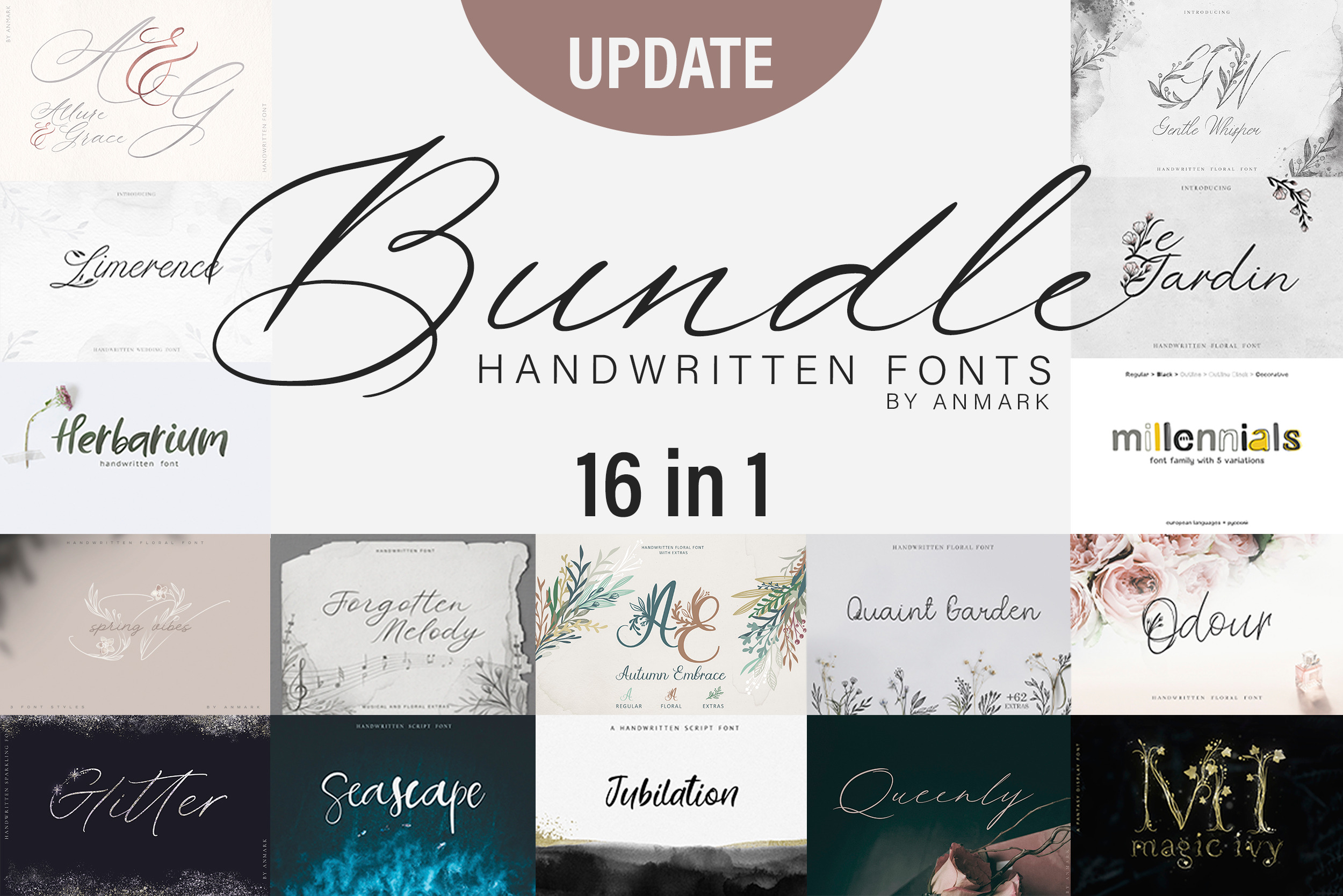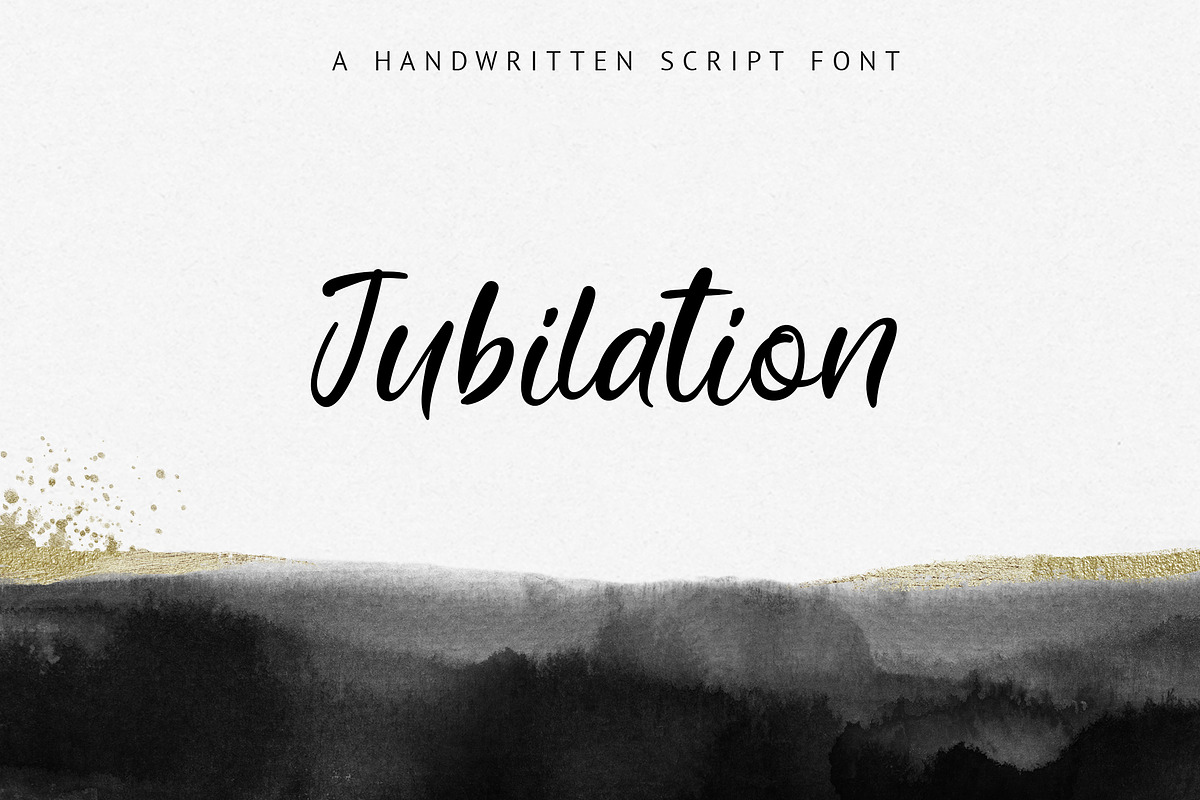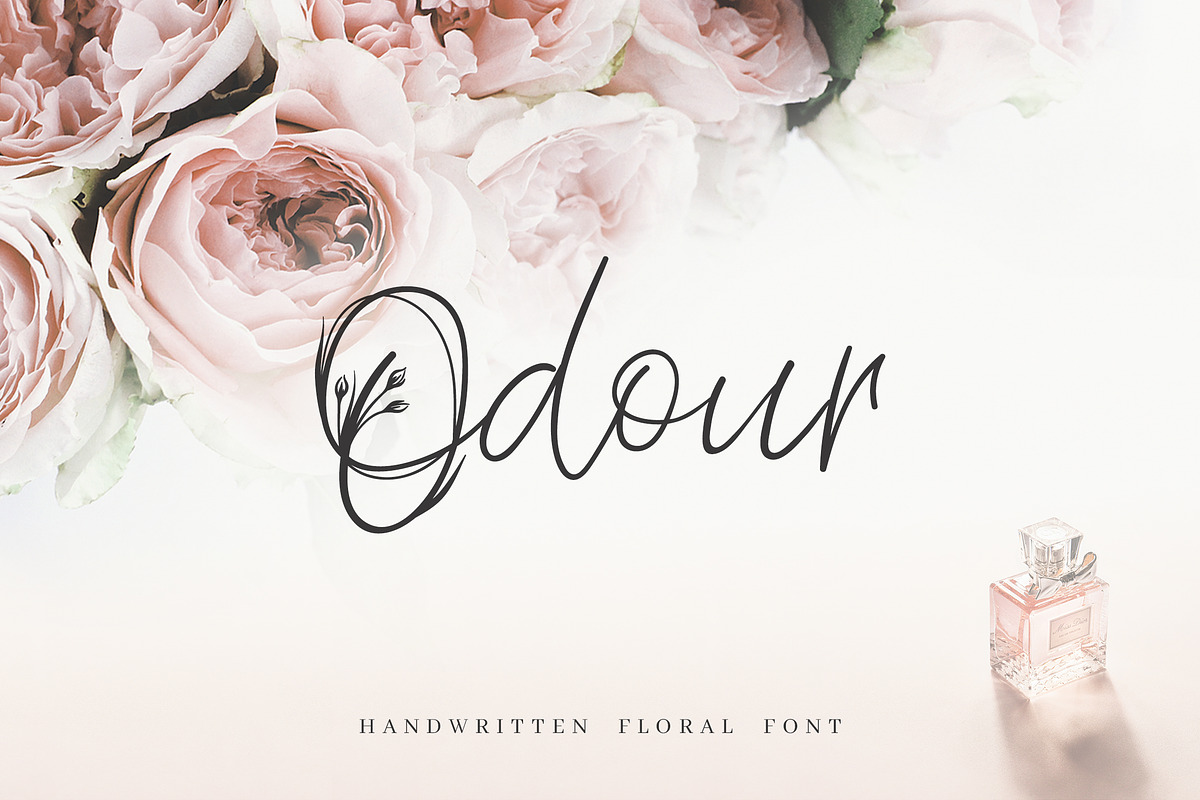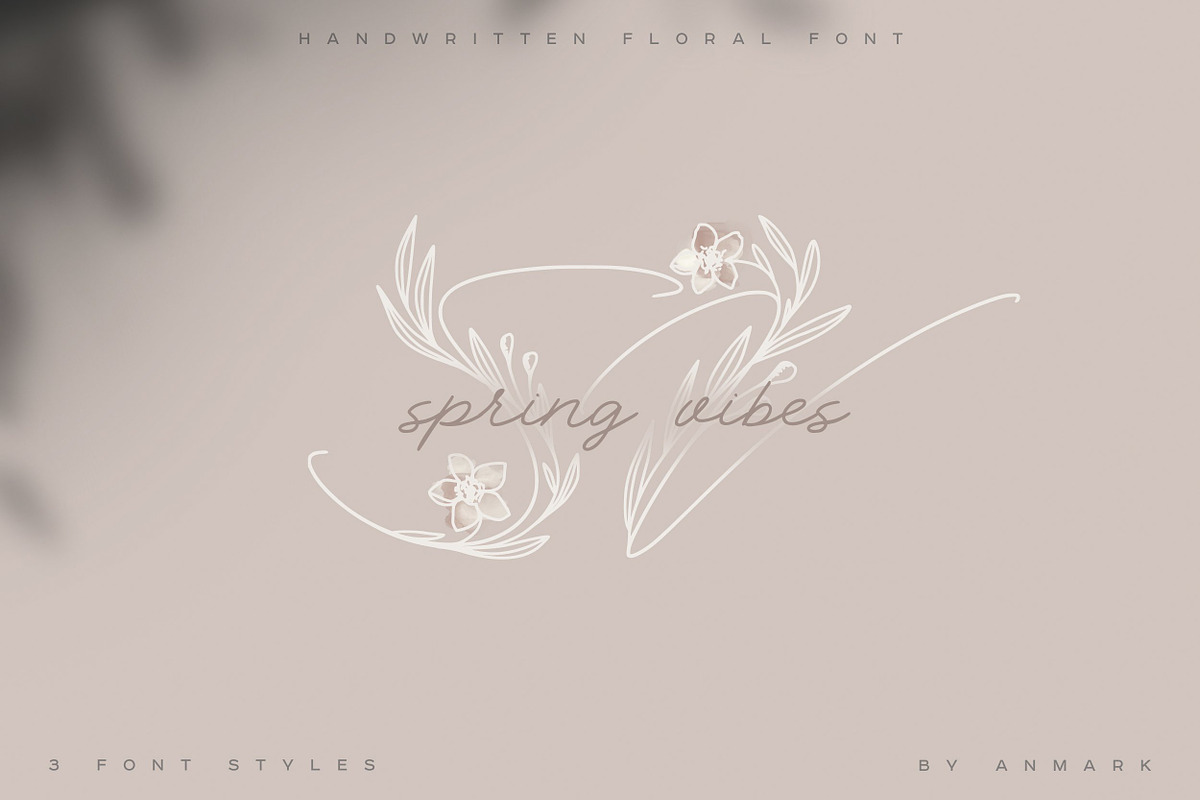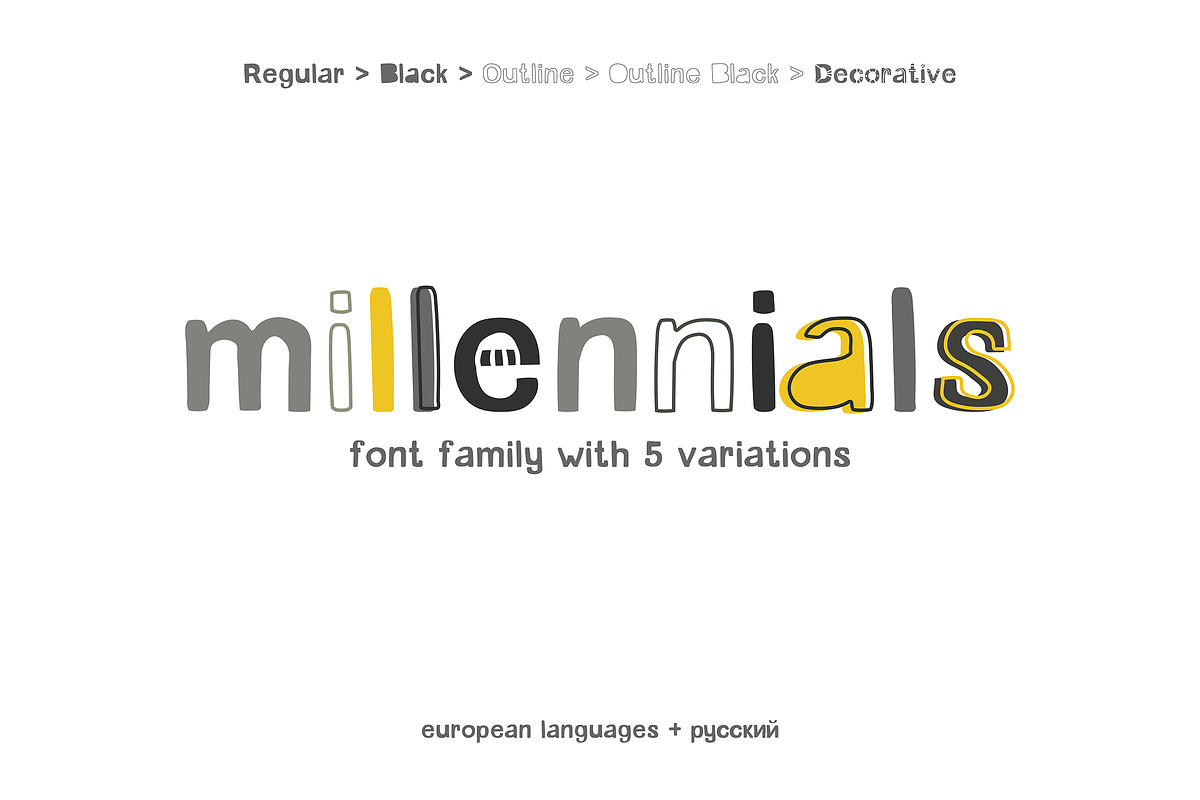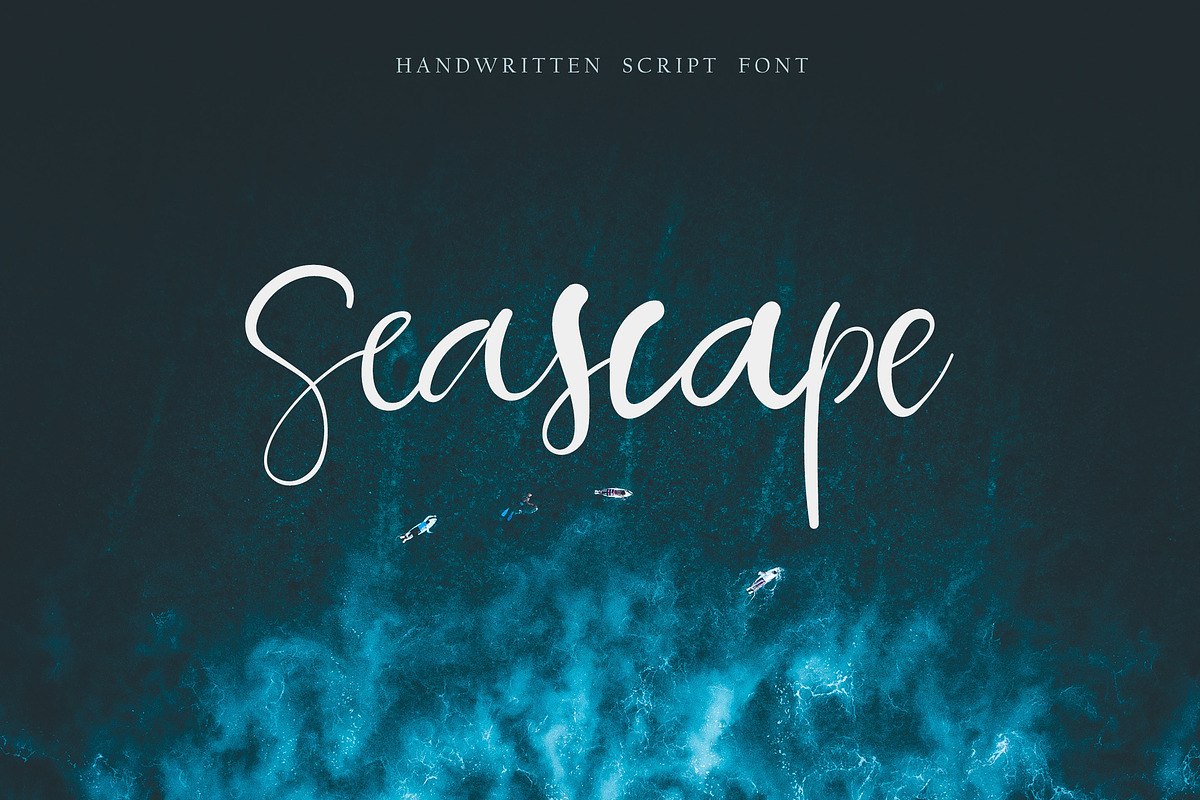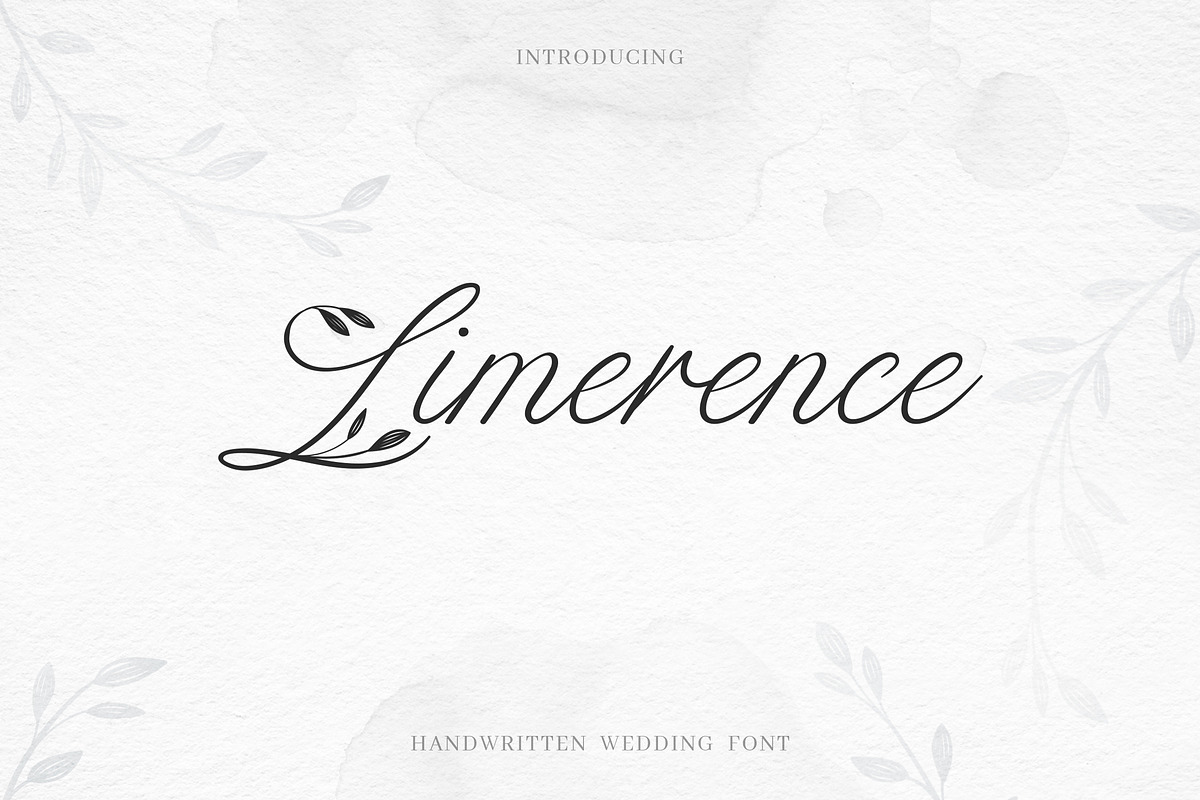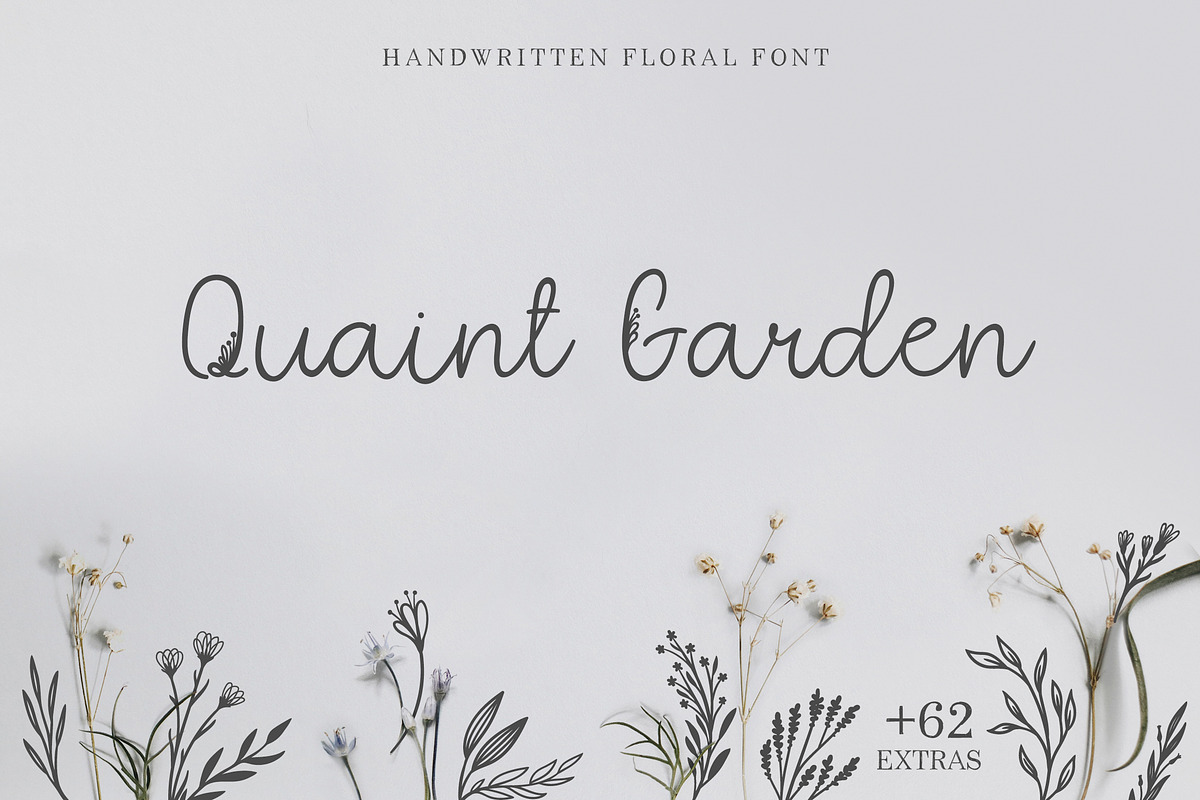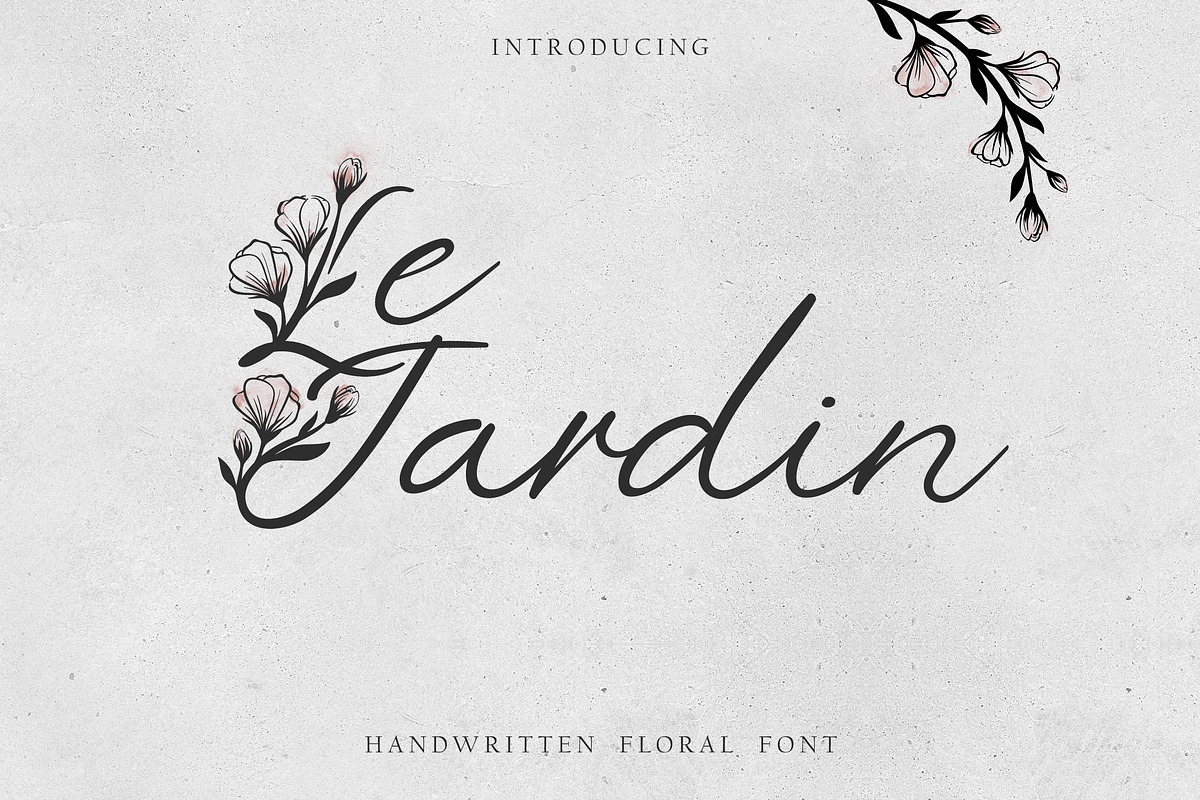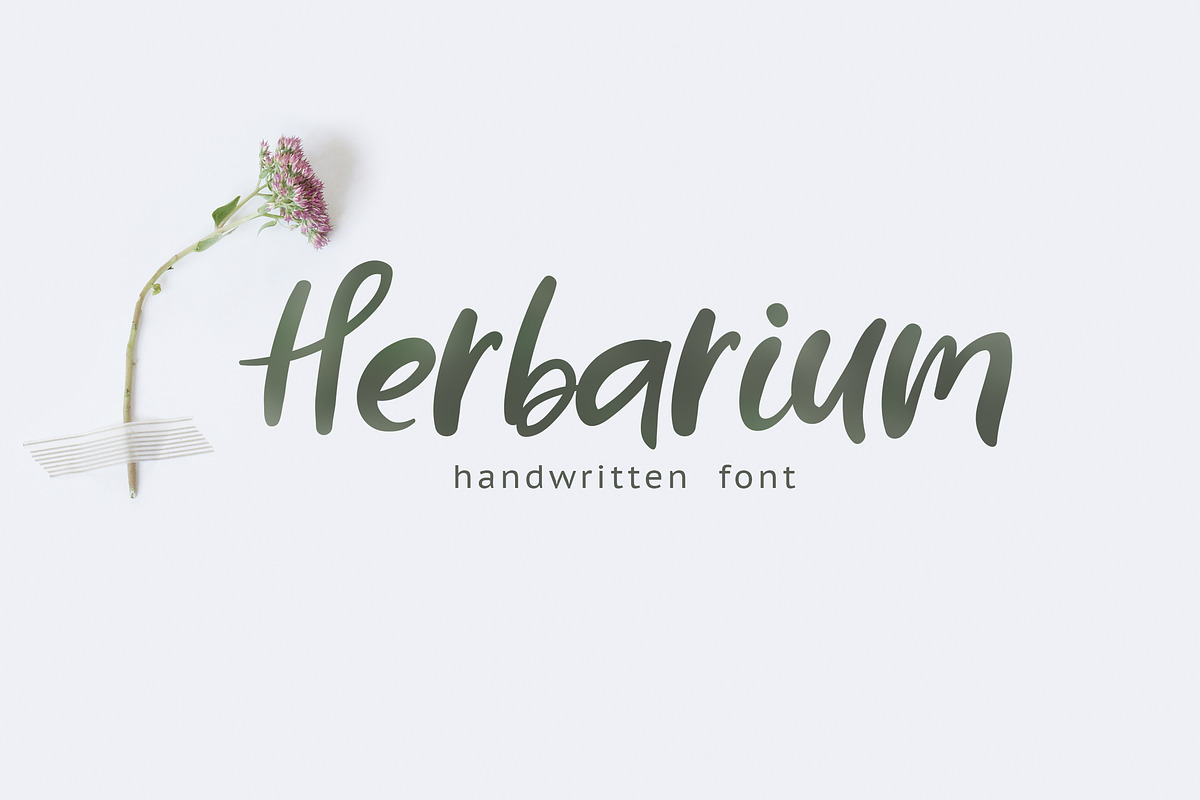
Handwritten Font BUNDLE - a collection of 16 typefaces in 31 unique font styles.
This bundle is perfect for wedding design projects, instagram, invitations, signatures, watermarks, logos, letterpress address, titles, birthday invitations, handwriting and other.
Modern calligraphy uppercase letters are ideal for your wedding monograms and logos. Use this fonts for wedding invitations, branding, packaging, magazines, florist shops, social media, restaurant menus, greeting cards, headers and many more.
- Magic Ivy https://creativemarket.com/anmark/3174216
- Forgotten Melody https://creativemarket.com/anmark/2850527
- Odour https://creativemarket.com/anmark/2546330
- Le Jardin https://creativemarket.com/anmark/2716660
- Quaint Garden https://creativemarket.com/anmark/2788532
- Limerence https://creativemarket.com/anmark/2446195
- Jubilation https://creativemarket.com/anmark/2465499
- Seascape https://creativemarket.com/anmark/2301214
- Millennials https://creativemarket.com/anmark/2148445
- Herbarium https://creativemarket.com/anmark/2193981
Added 6 font families:
- Gentle Whisper https://creativemarket.com/anmark/2601581
- Glitter https://creativemarket.com/anmark/3588362
- Allure and Grace https://creativemarket.com/anmark/3337493
- Queenly https://creativemarket.com/anmark/3066411
- Autumn Embrace https://creativemarket.com/anmark/2872073
- Spring Vibes https://creativemarket.com/anmark/3527844